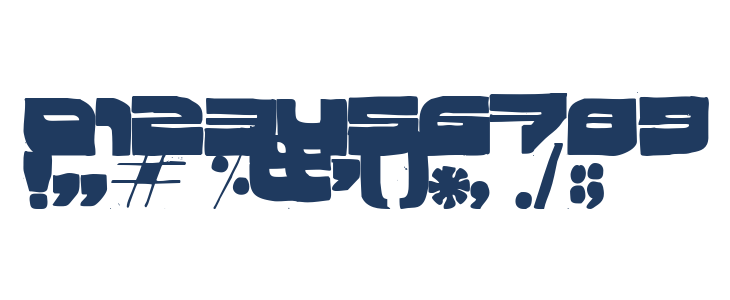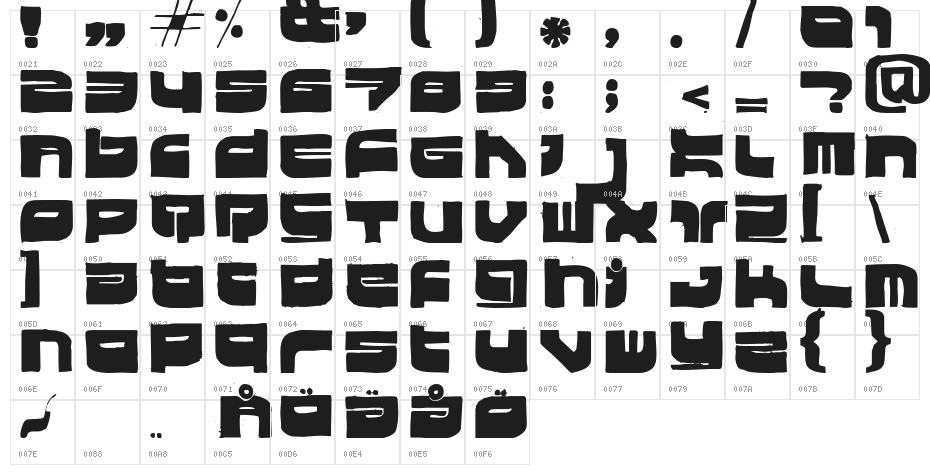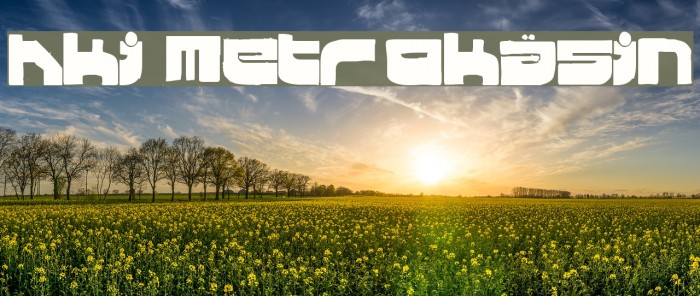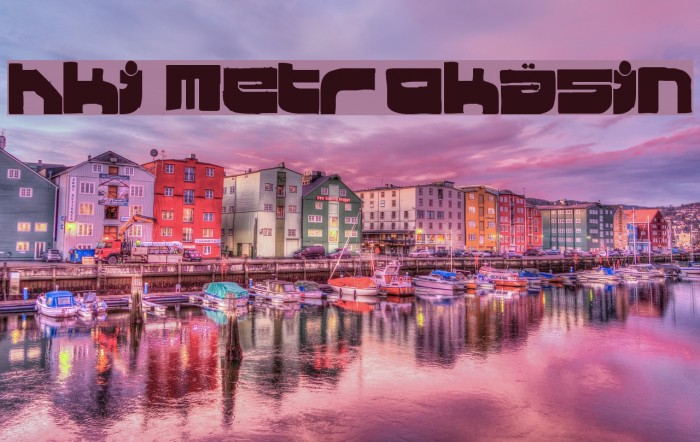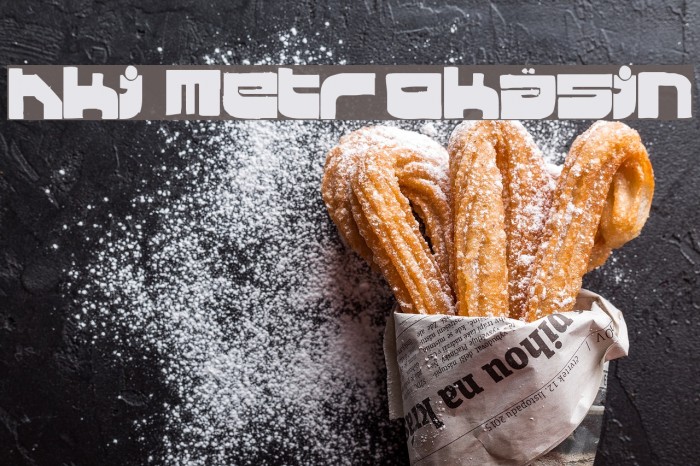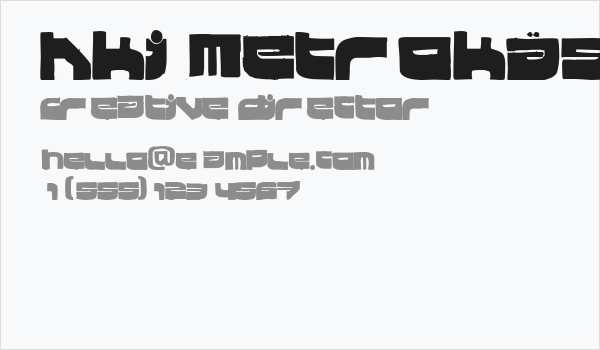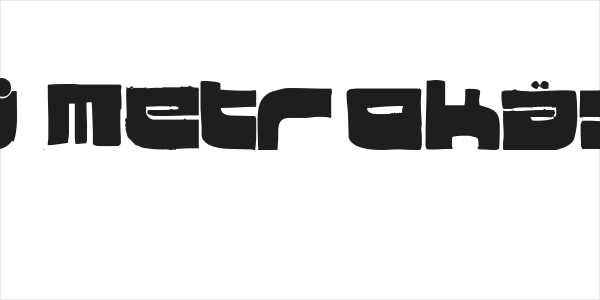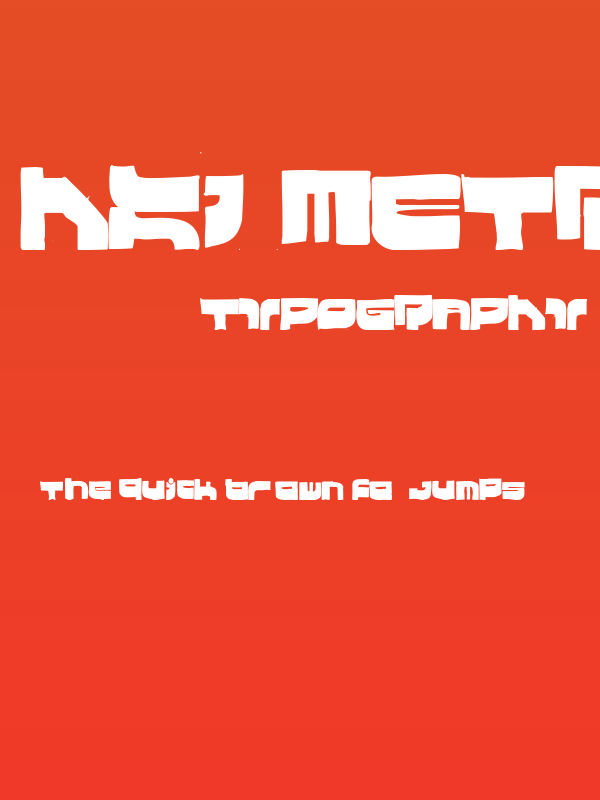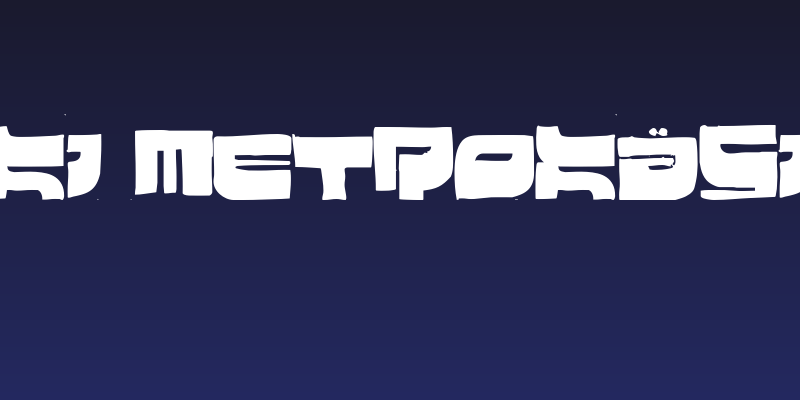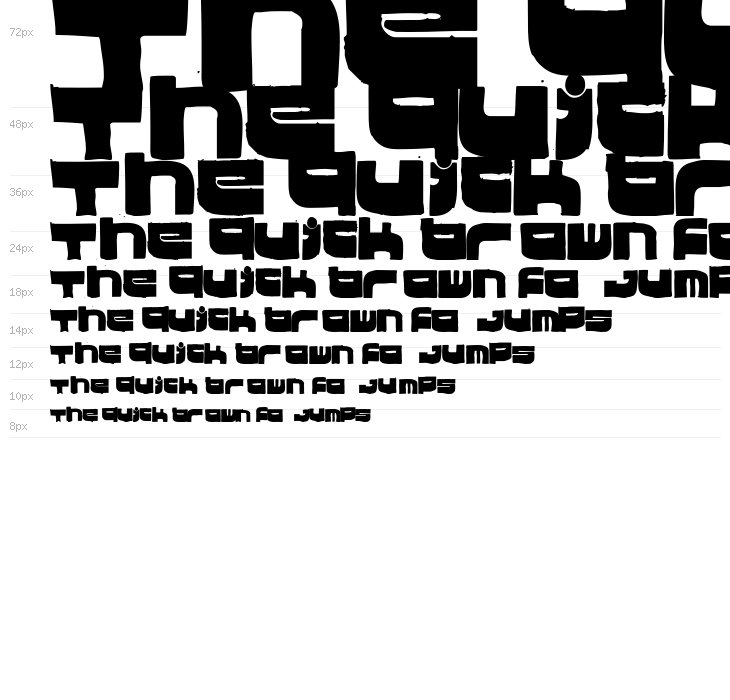
Hki Metrokäsin Font
Hki Metrokäsin Description
This font exhibits a bold and futuristic style, characterized by its thick, block-like letterforms with rounded edges. The uppercase and lowercase letters maintain a consistent width, creating a uniform appearance. The numerals and special characters follow the same design principles, ensuring cohesion across all glyphs. The font's geometric shapes and solid structure give it a modern and industrial feel, making it suitable for contemporary design projects. Its unique style is eye-catching and memorable, ideal for making a strong visual impact.
Overall StyleFuturistic
Proposed ProjectsIdeal for branding, posters, video game graphics, and sci-fi themed projects.